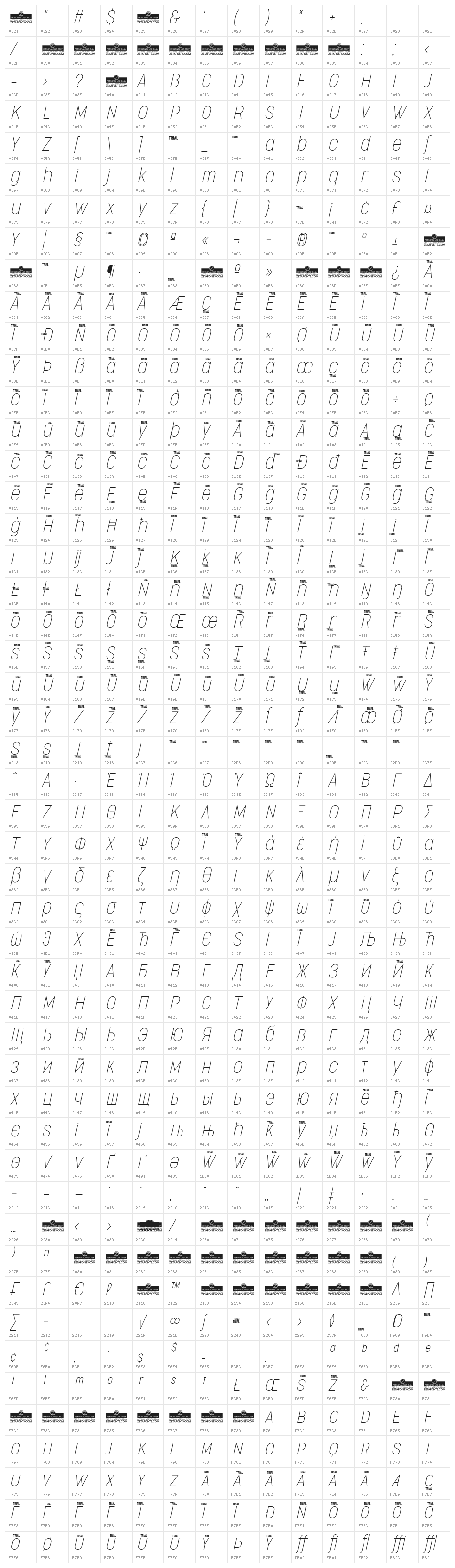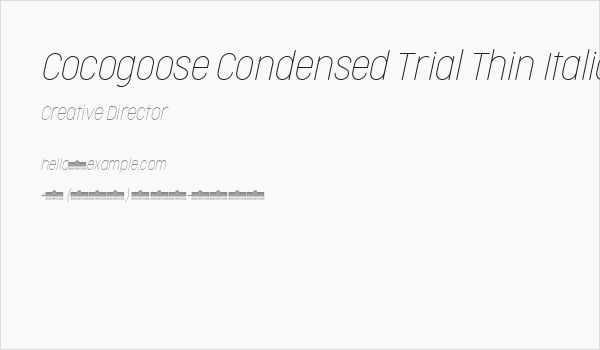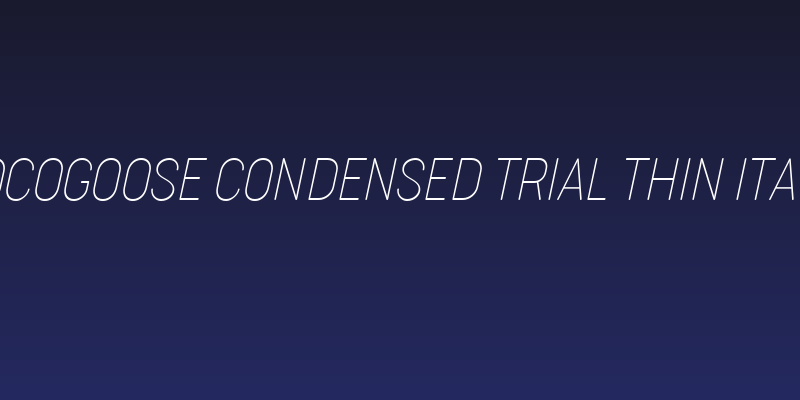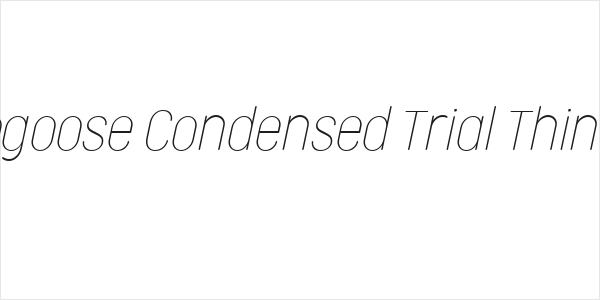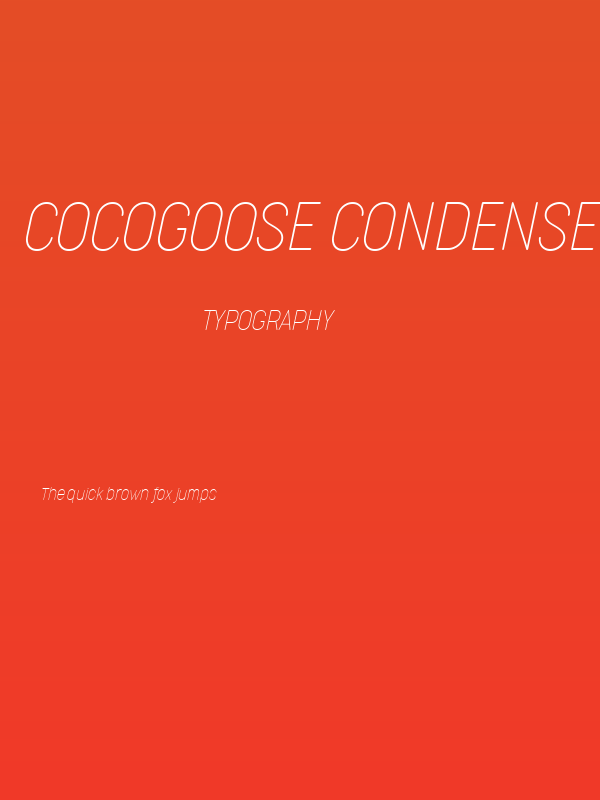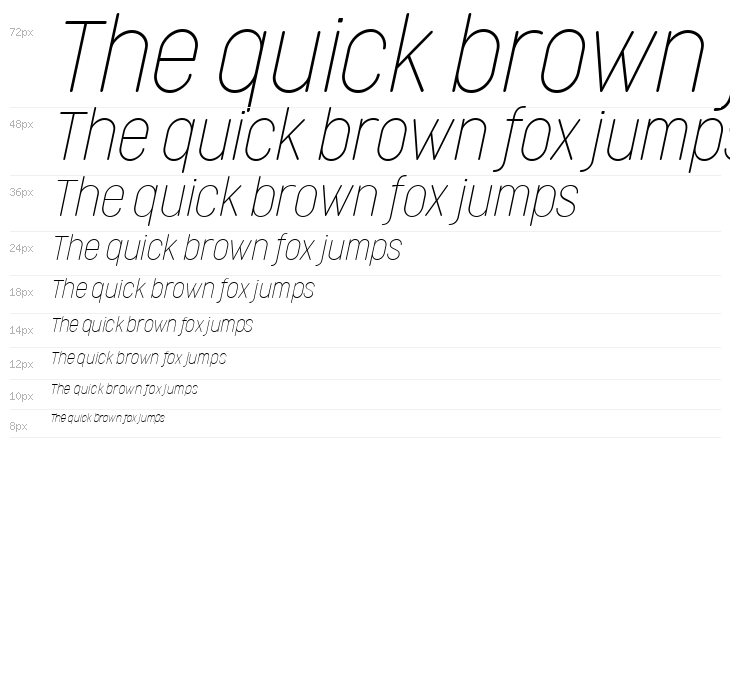
Cocogoose Condensed Trial Thin Italic Font
Cocogoose Condensed Trial Thin Italic Description
This font features a sleek and modern design with a condensed structure, offering a thin and elegant appearance. The italic style adds a dynamic and sophisticated touch, making it suitable for contemporary design projects. The characters are well-defined with a consistent stroke width, providing a clean and professional look. The font includes a full set of uppercase and lowercase letters, numbers, and a variety of special characters, ensuring versatility in usage. Its minimalistic and streamlined design makes it ideal for projects that require a touch of elegance and modernity.
| Use Case | Headlines, Logos, Editorial design |
| Proposed Projects | Ideal for branding, editorial design, fashion magazines, and modern web design. |